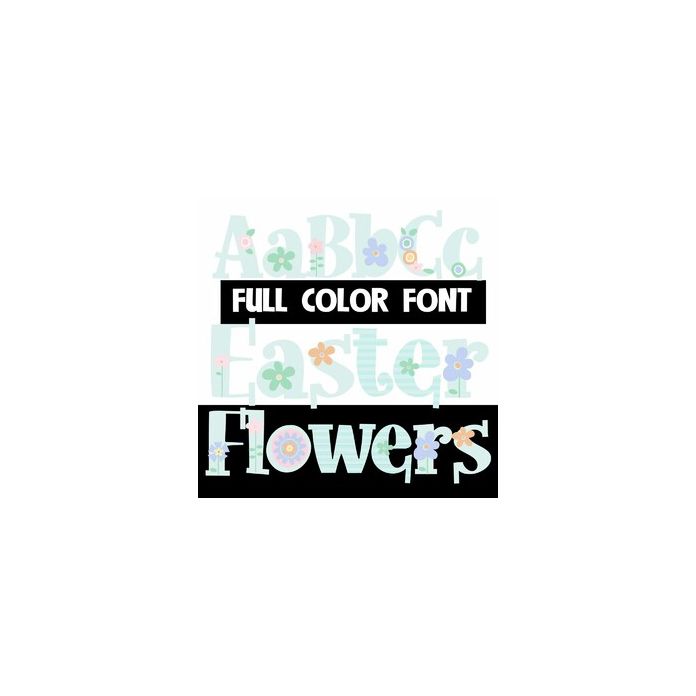
This full-color font features a very light, pastel-color palette of flowers and prints. You can access another version of the letters by using the alt characters in Silhouette's glyph map.